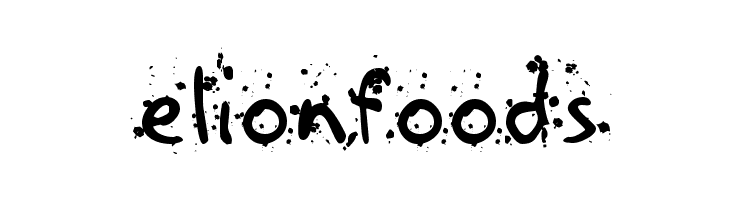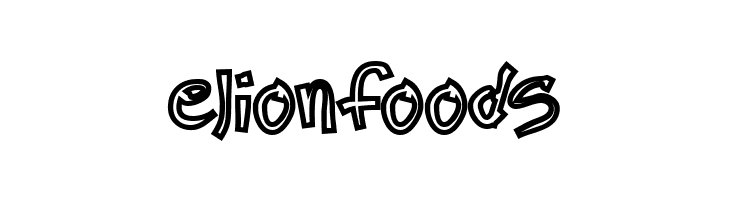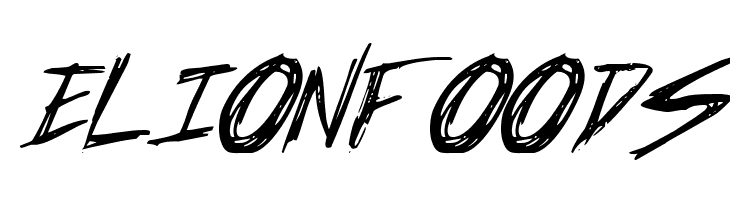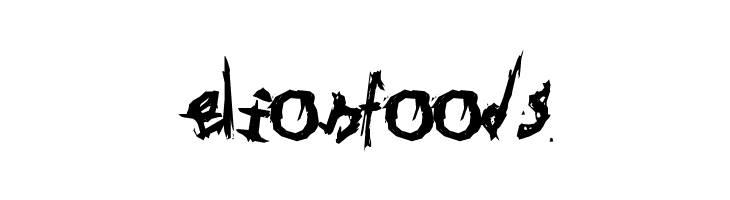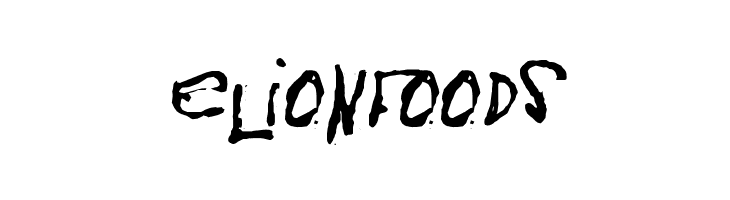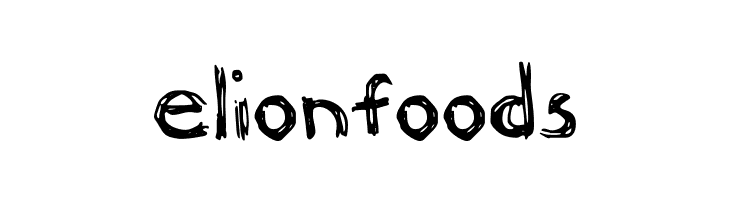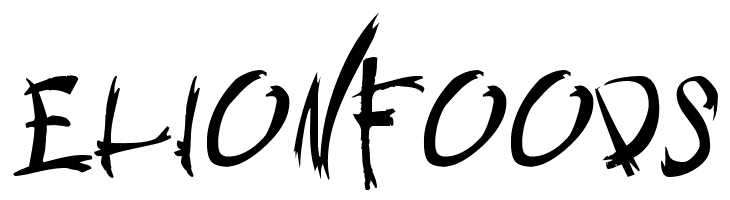
A playful, hand-drawn font with hollow interiors and a graffiti-like aesthetic.
A chaotic, hand-drawn font with irregular, jagged strokes and a graffiti-like style.
A bold, edgy, and italic font with a hand-drawn, graffiti-like style.
A bold, hand-drawn font with a brush-like, graffiti-inspired style.
A bold, hand-drawn font with a rough, graffiti-like style.